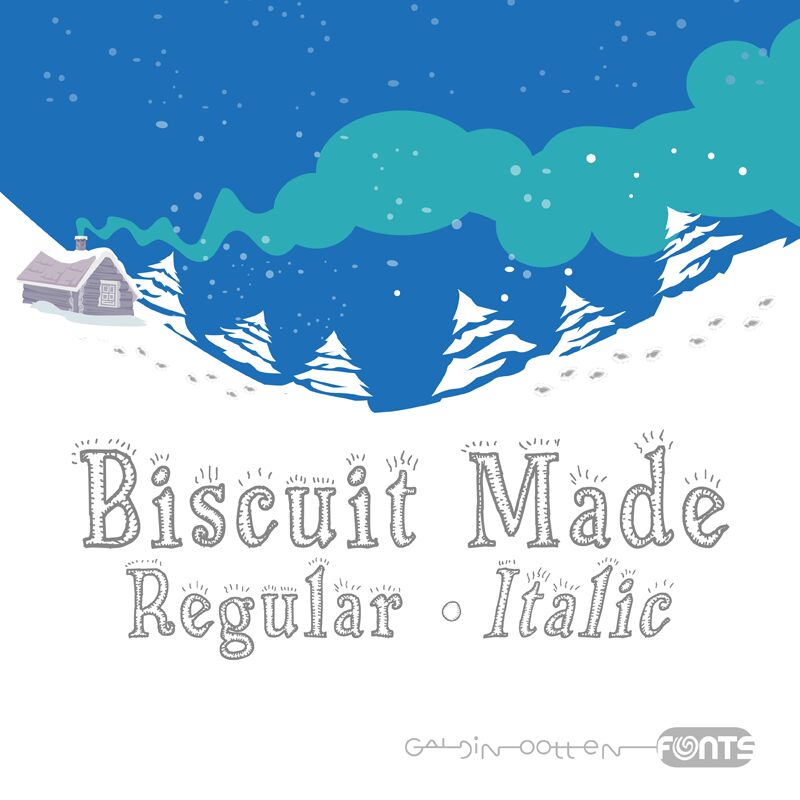
Biscuit Made
Biscuit Made font by Galdino Otten Fonts blends cartoon style with whimsical, illustrative elements. Its decorative accents and charming flair make it a delightful display font for fun-filled projects. With a nostalgic feel and quirky charm, it is retro, dainty, yet impressive enough to interest every viewer of the presented text.
The free display font is suitable for posters, T-shirt designs, postcards, badges and logos. Use Biscuit Made in games themed decorations like signs and packaging boxes. Integrate its attractive designs within websites meant for kids as well as magazines related to crafts tutorials and DIYs videos.